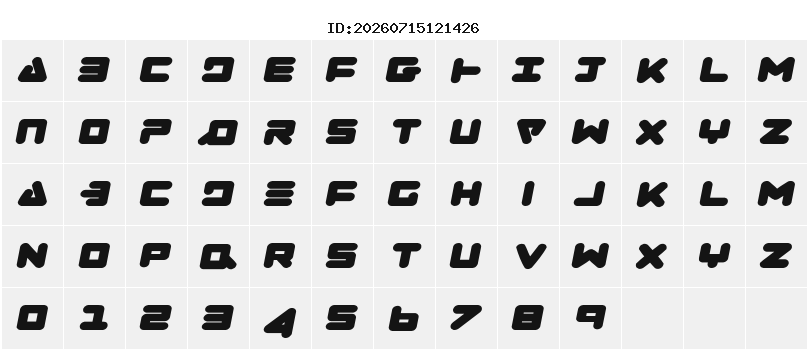
Zealot Expanded Italic Preview
About Zealot Expanded Italic.ttf
Zealot Expanded Italic.ttf is a modern, elegant sans-serif font designed for ultimate readability and visual harmony. Perfect for branding, headlines, web design, and print materials.